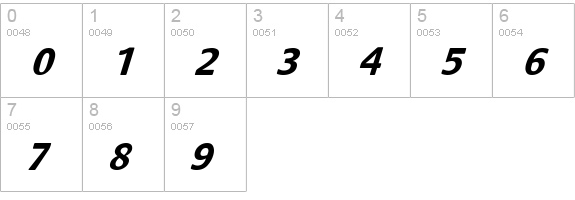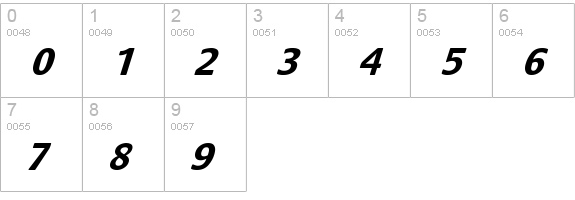
StackObl-Bold Font Details
StackObl-Bold is a strong, high-contrast variant in the StackObl typeface family \xE2\x80\x94 well suited to headlines, attention-grabbing titles, and strong calls-to-action.
StackObl-Bold is a bold and powerful font that exudes confidence and elegance. It is the perfect choice for creating eye-catching headlines, impressive logos, and impactful designs. With its strong and distinctive letterforms, StackObl-Bold commands attention and leaves a lasting impression. This font is not only visually striking but also versatile, making it suitable for a wide range of creative projects. Whether you are designing a poster, a magazine cover, or a website, StackObl-Bold will add a touch of sophistication and professionalism to your work. One of the best features of StackObl-Bold is that it is freely available to download at FontsMarket.com. This means that you can instantly add this stunning font to your collection without any cost. It's a great opportunity for designers and creatives who want to enhance their projects with a high-quality font without breaking the bank. So why wait? Take advantage of this amazing offer and download StackObl-Bold today at FontsMarket.com. Elevate your designs and make a bold statement with this exceptional font.